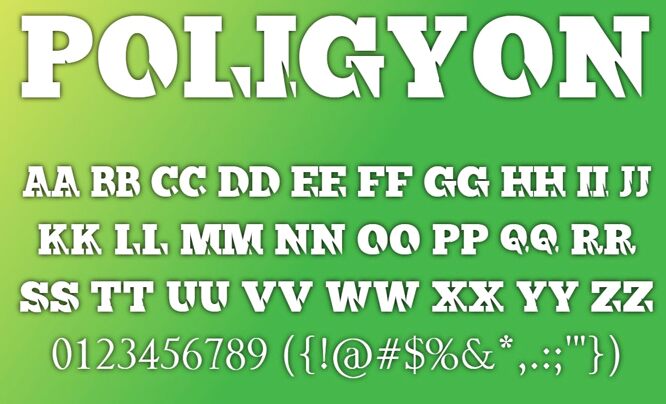
Poligyon
Poligyon is vogue outline font. Uppercase and lowercase letters are made in the same style. The font suitable for logos, magazine, eco packaging and other modern products. Be vogue!